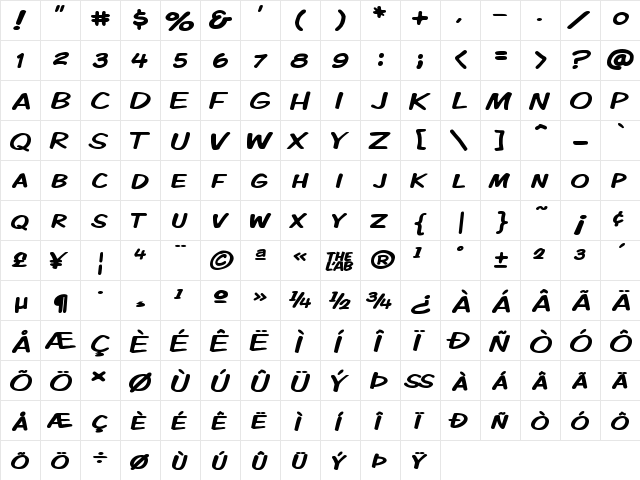
Komika Display Kaps Wide Regular
Design Context for Komika Display Kaps Wide Typeface
Komika Display Kaps Wide brings ornamental detail and strong personality to headlines and identities, where visual impact matters more than quiet functionality.
Font Pairing: Pair with a clean neutral sans-serif for body copy to let Komika Display Kaps Wide's character lead without overwhelming the composition.
Pro Tip: Use Komika Display Kaps Wide exclusively at display sizes — it was designed to be seen, not read at length. Let a neutral companion handle body copy.